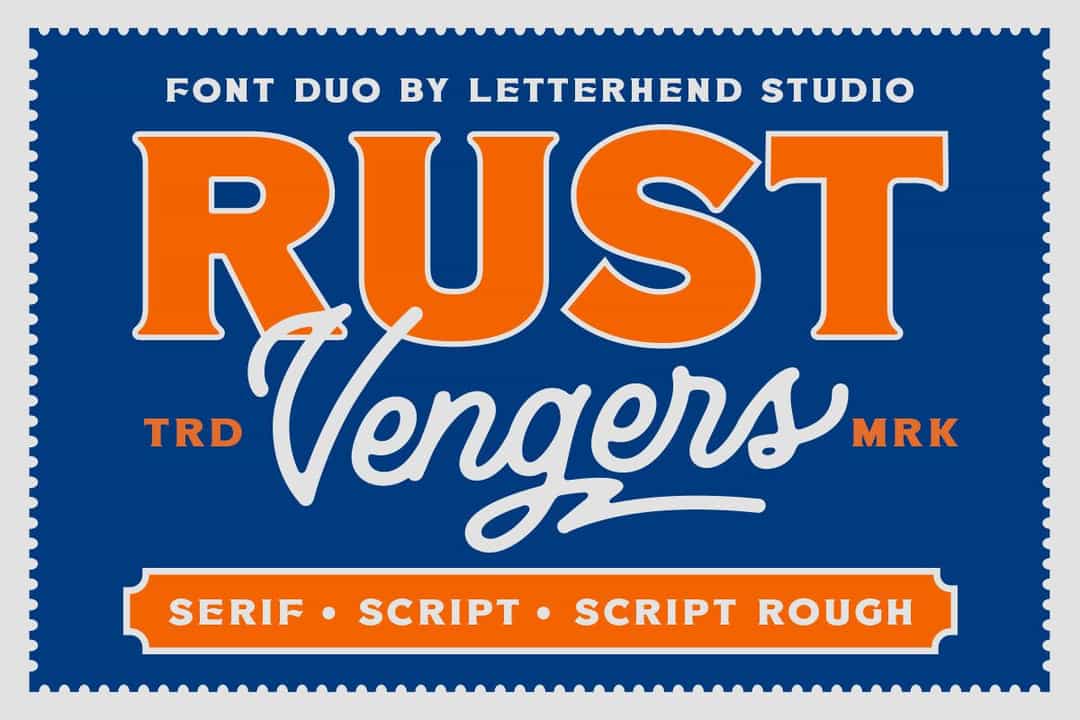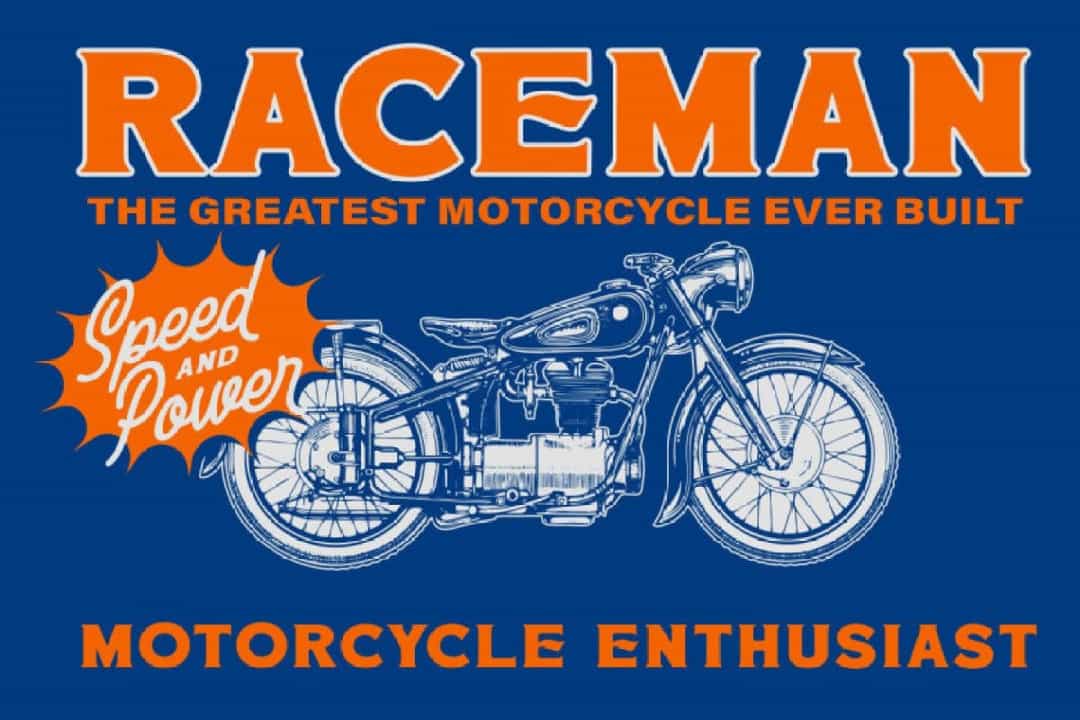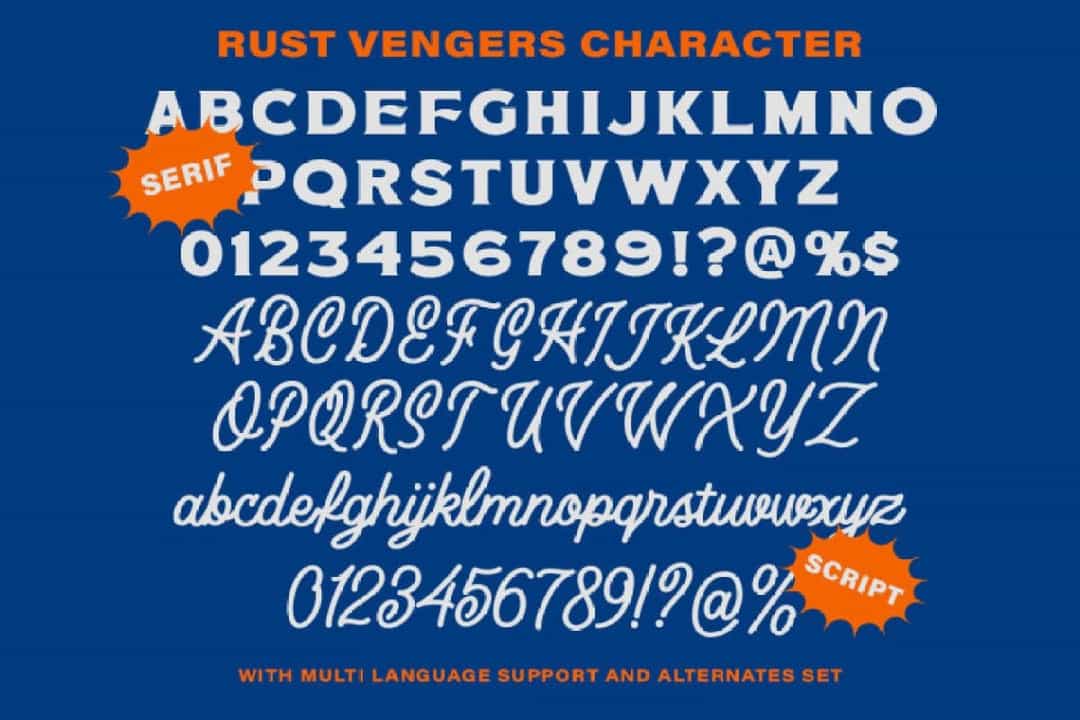
Rust Vengers is a two font display set, of a monoline script font combined with a display serif font with a hint of sportiness. This type of font is combined in a perfect way to be used mainly for logos, titles, advertisement, and the other sorts of formal purposes like invitation, labels, logos, magazines, books, greeting/wedding cards, packaging, fashion, makeup, stationery, novels, labels or any other advertising purpose.